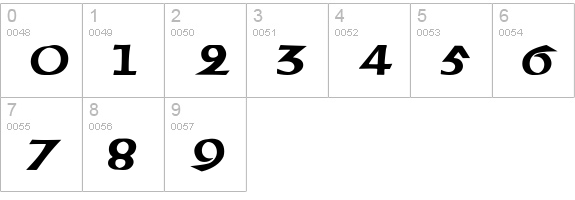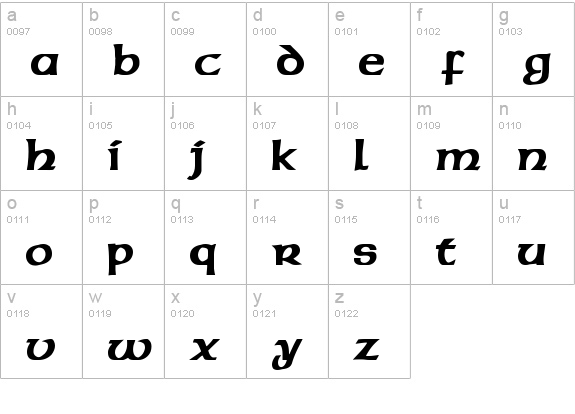
Codex SSi Font Details
Codex SSi font is a modern and stylish typeface that exudes sophistication and elegance. With its clean lines and sleek design, it is perfect for a wide range of design projects, from branding to editorial design. The font features a unique blend of classic and contemporary elements, making it versatile and suitable for various applications. What sets Codex SSi font apart is that it is not only visually appealing but also free to download. That's right, this high-quality font is freely available at FontsMarket.com, allowing designers and creatives to access it easily and use it in their projects without any cost. Whether you're working on a website, a poster, a logo, or any other design piece, Codex SSi font is sure to make a statement and elevate your work to the next level. Don't miss out on the opportunity to enhance your designs with the modern and elegant Codex SSi font. Download it for free today and take your projects to new heights.